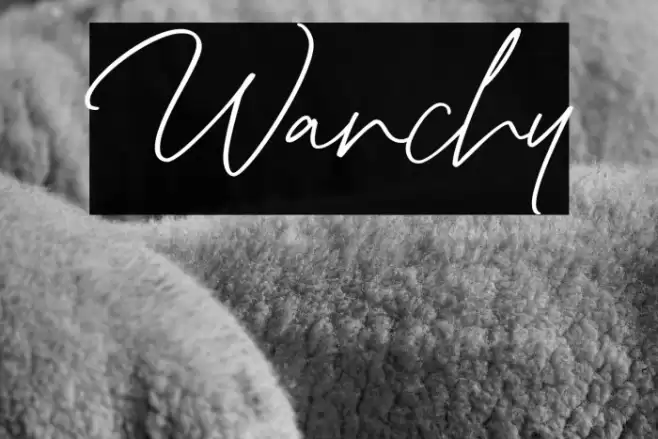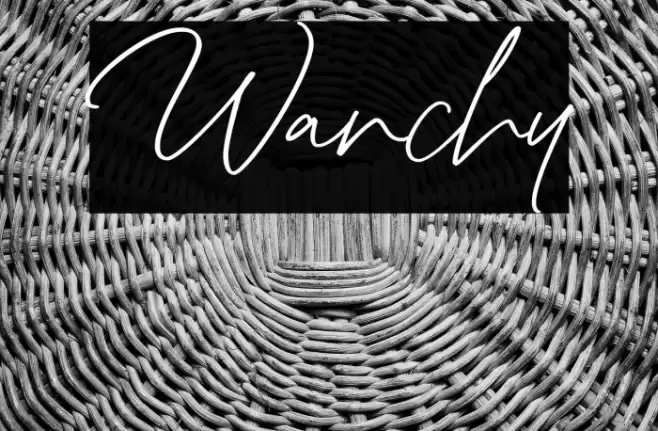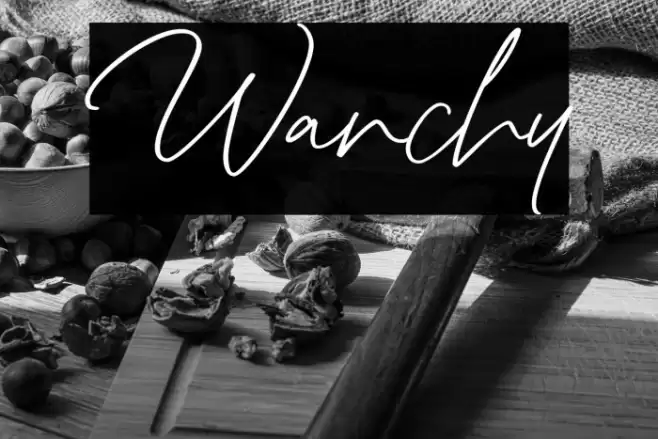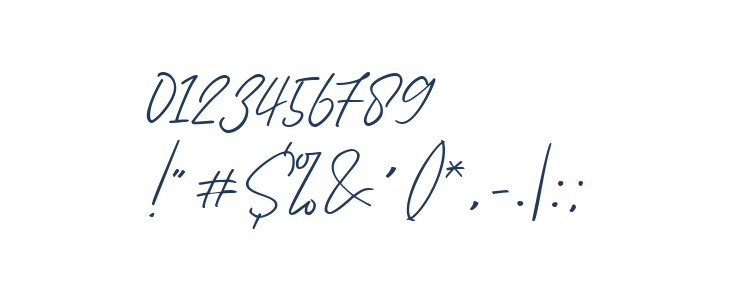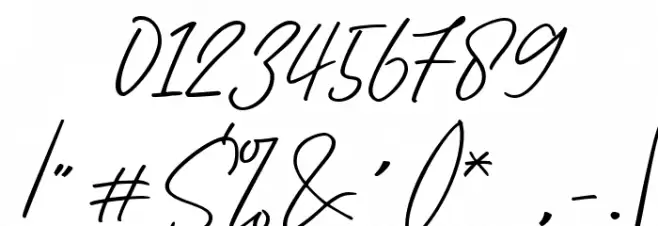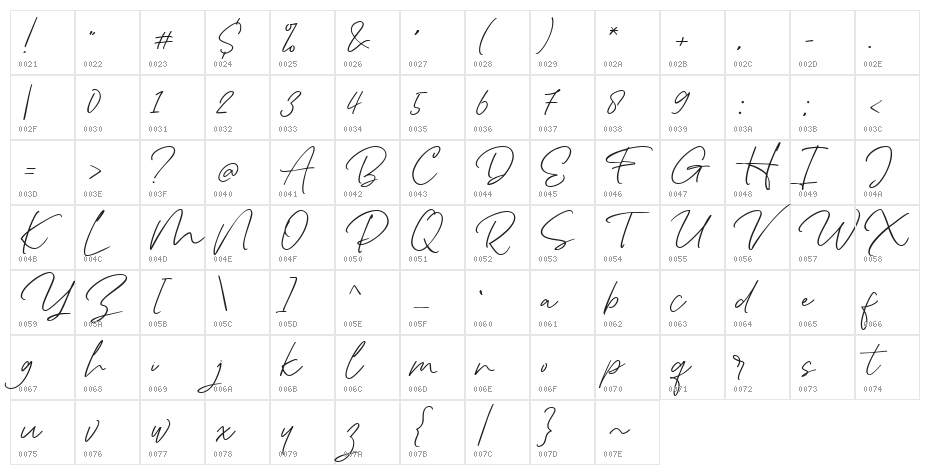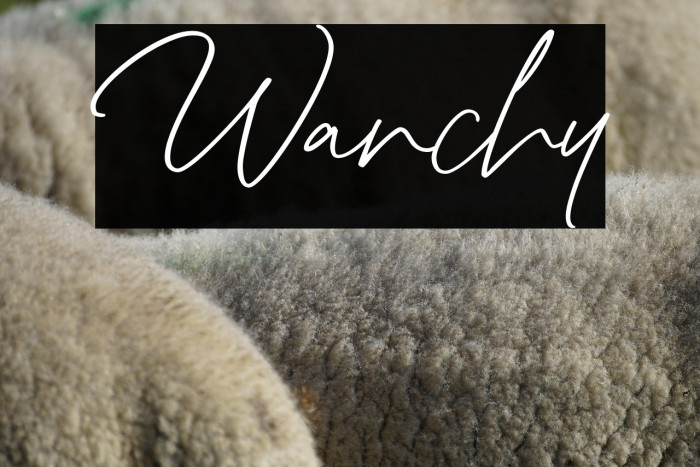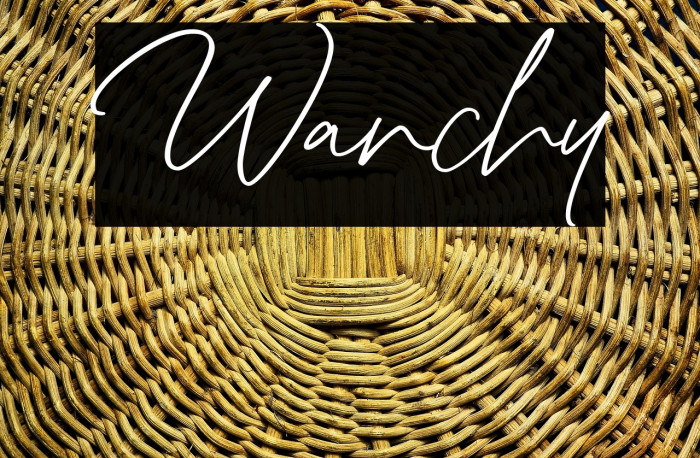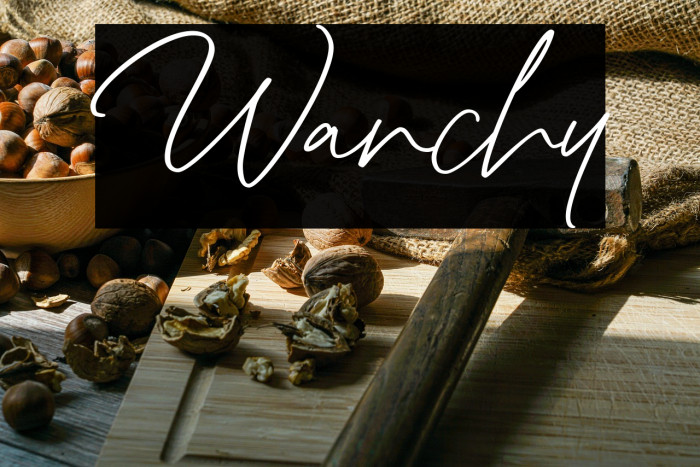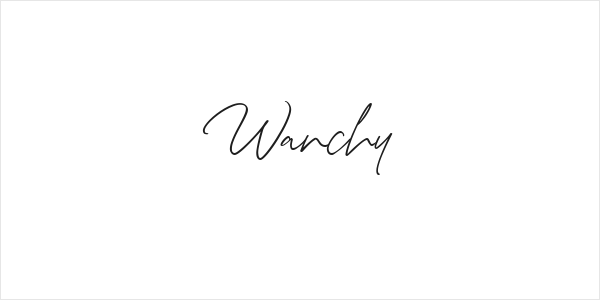
Wanchy Font
Wanchy Description
This font exudes a lively and dynamic handwritten style, characterized by its fluid and cursive strokes. The letters are elegantly connected, giving a sense of continuity and flow. The uppercase letters maintain a consistent height, while the lowercase letters vary slightly, adding to the casual and personal feel. The numerals are distinct yet harmonious with the overall script, and the special characters are crafted with the same attention to detail, ensuring they blend seamlessly. The font's playful nature makes it suitable for projects that require a personal touch.
A lively, cursive handwritten font with fluid strokes from Regular fonts.
- Proposed Projects: Ideal for greeting cards, invitations, personal branding, and creative projects that benefit from a handwritten touch.
- Use Case: Logos, Invitations, Personal Branding